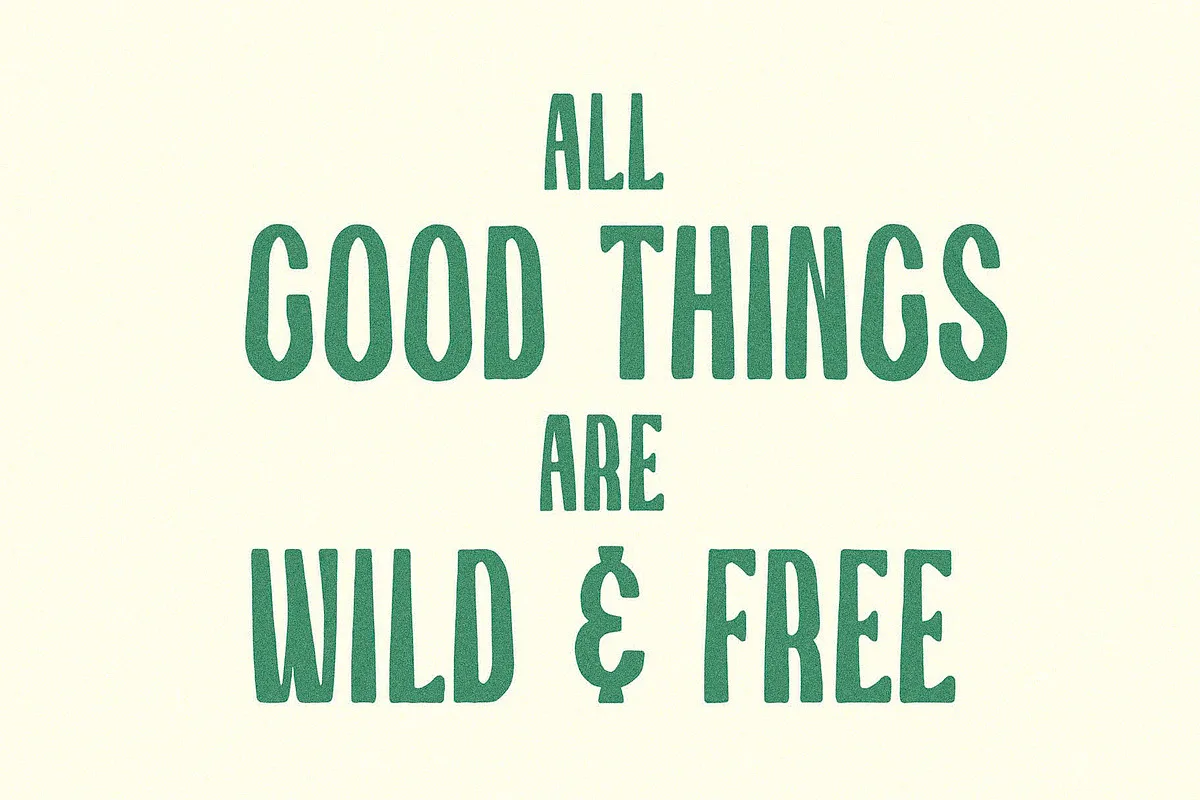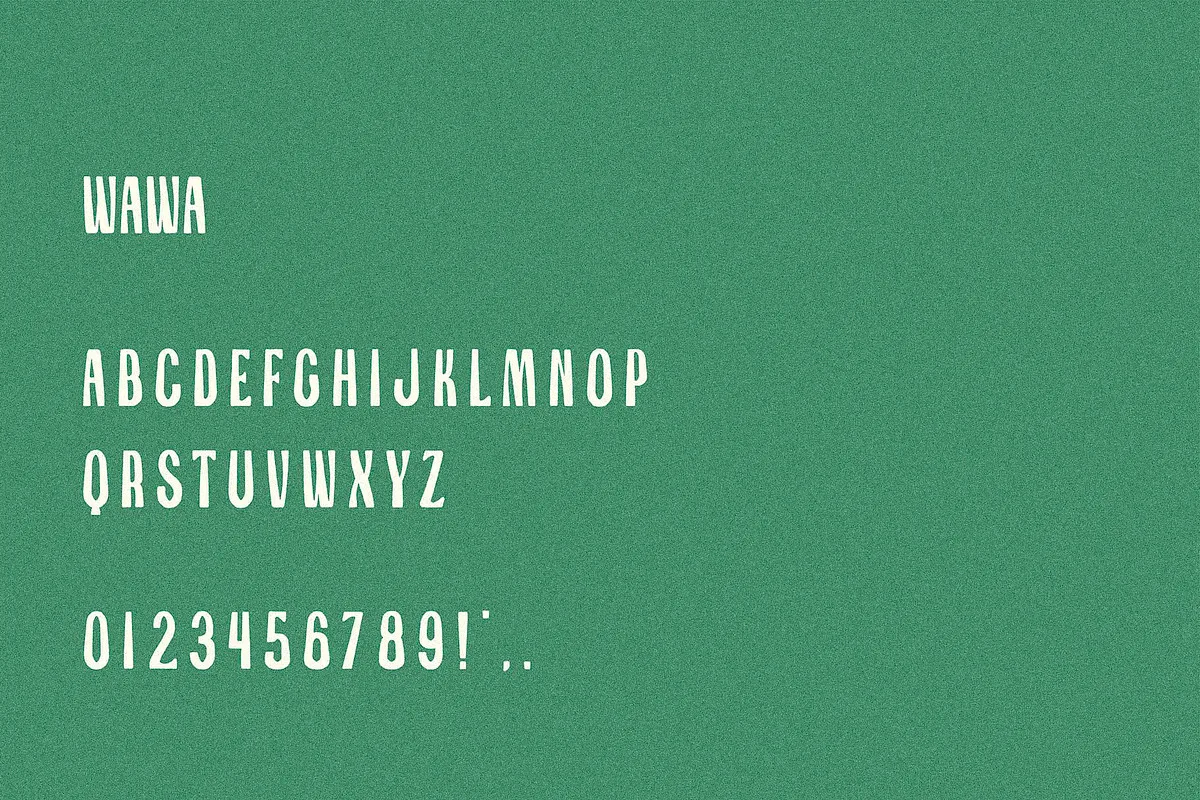
Wawa was inspired by the tropics, this relaxed typeface shines brightest with single-word usage but is versatile for whatever the use case. Contains letters A-Z, 0-9, `okina / kahakō and basic punctuation. This font is perfect for posters, social media posts, branding, personal projects, etc.
Wawa Logo Font